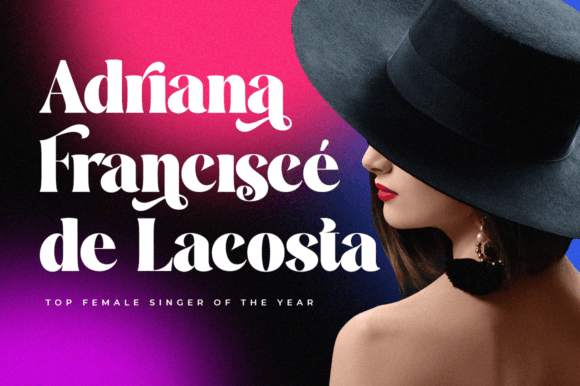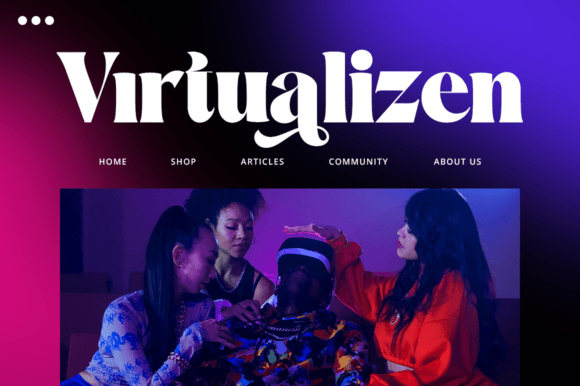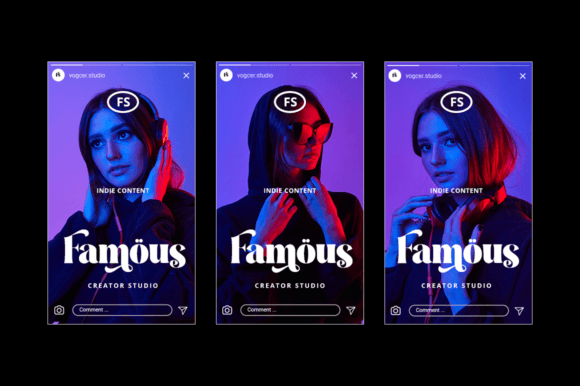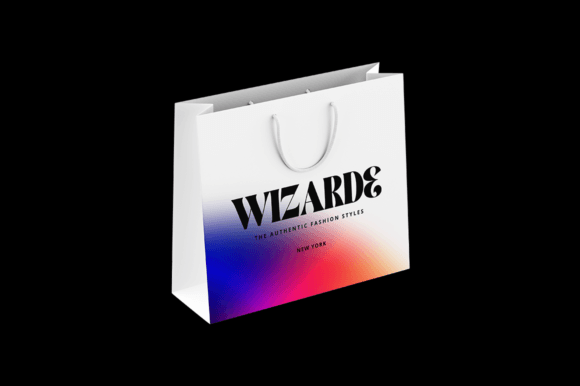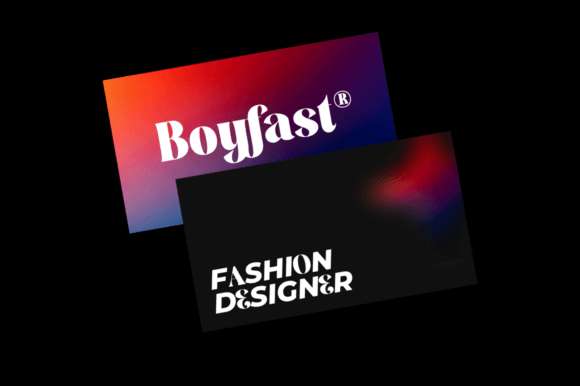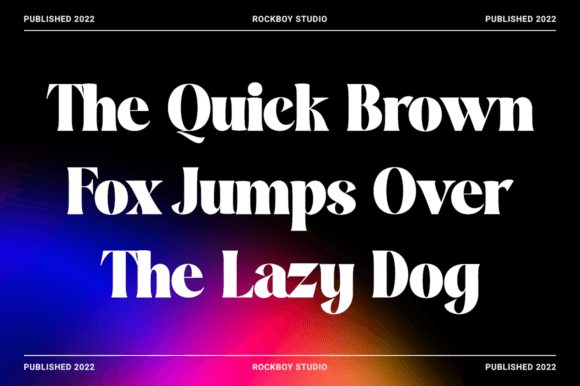
Fariative Font: Elevate Your Designs with Elegance and Sophistication
In the world of typography, a font can make or break a design. A well-chosen font can elevate your project, conveying the perfect tone and aesthetic. If you’re on the hunt for a font that’s both elegant and distinct, look no further than Fariative. This beautiful serif font is suitable for a wide range of designs, from elegant branding to stylish crafting projects.
The Characteristics of Fariative Font
Fariative is a serif font that exudes sophistication and refinement. Its neat and simple style makes it incredibly versatile, allowing it to be used in various design contexts. Whether you’re creating a logo, brochure, or social media graphic, Fariative is sure to make a lasting impression. The font’s classic design ensures that it will remain timeless, avoiding the risk of looking dated or trendy.
Why Choose Fariative Font?
So, why should you choose Fariative for your next design project? Here are just a few compelling reasons:
- Elegant and Distinctive: Fariative’s serif design sets it apart from more generic fonts, adding a touch of elegance to any project.
- Versatile: The font’s simple yet sophisticated design makes it suitable for a wide range of projects, from branding and advertising to crafting and DIY.
- Timeless: The classic design of Fariative ensures that it will remain stylish and relevant for years to come.
Fariative is an excellent choice for both designers and crafters. Whether you’re creating professional branding materials or crafting personalized gifts, this font is sure to impress. The elegant design and PUA encoding make it easy to use and accessible, allowing you to focus on the creative aspects of your project.
In conclusion, Fariative is an exceptional font that offers elegance, sophistication, and versatility. Its PUA encoding makes it easy to use in a variety of design software, and its classic design ensures that it will remain timeless. Whether you’re a designer, crafter, or simply someone who appreciates beautiful typography, Fariative is an excellent choice for any project. With its neat and simple style, Fariative has the potential to become your go-to font, no matter the occasion.